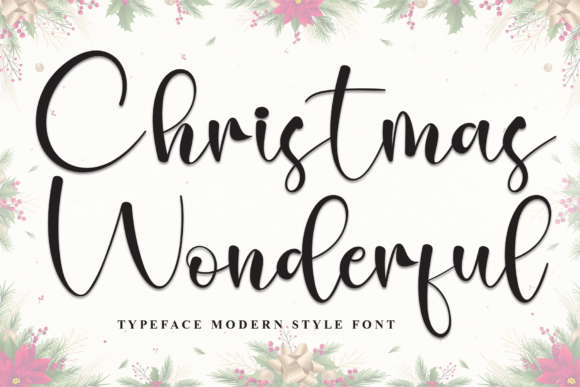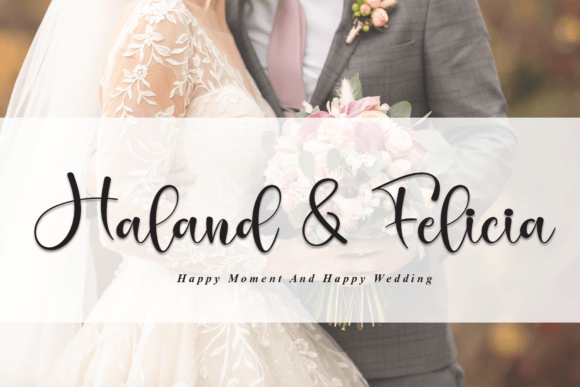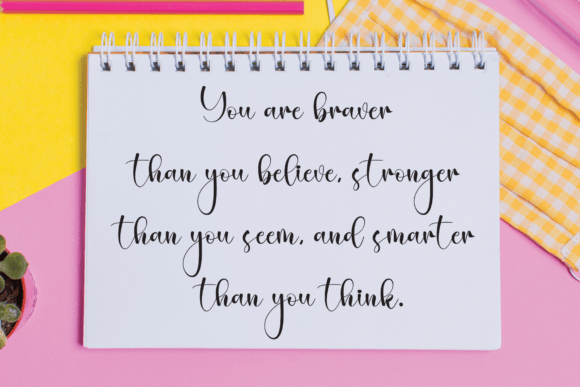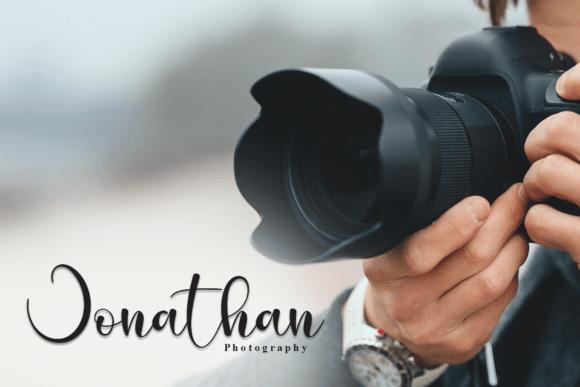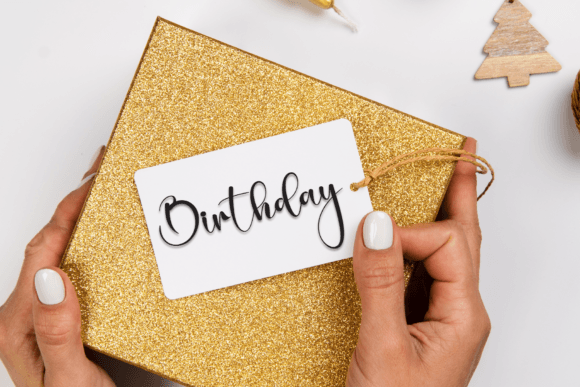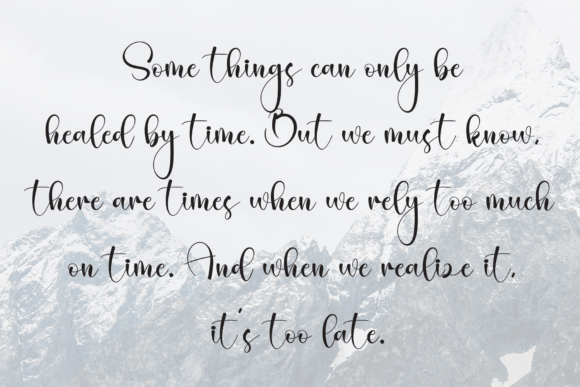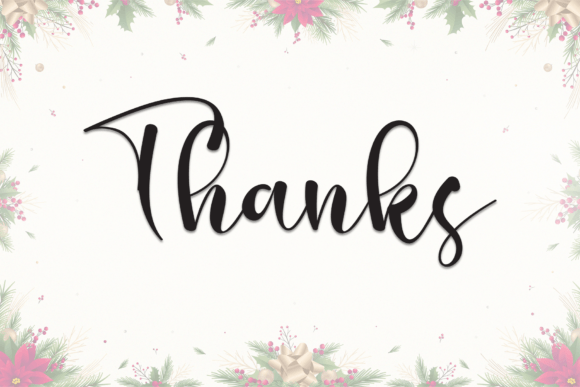
Unleash the Magic of the Season with Christmas Wonderful Font
As you sit by the fireplace, sipping hot cocoa and surrounded by twinkling lights, you start brainstorming ideas for this year’s Christmas projects. You envision a beautifully designed invitation, a stunning social media post, or a heartfelt card for loved ones. The perfect font can make all the difference in bringing your vision to life.
Enter Christmas Wonderful Font, a flowing handwritten font that exudes elegance and sophistication. Its distinct style is both timeless and versatile, making it the perfect choice for designers looking to add a touch of whimsy and charm to their projects. Whether you’re a seasoned pro or a DIY enthusiast, Christmas Wonderful Font is sure to inspire your creativity and help you create spectacular designs that will be cherished for years to come.
Christmas Wonderful Font Key Features
- Font Family: Christmas Wonderful Font comes in a single font family with multiple styles, including Regular, Bold, Italic, and Bold Italic.
- Character Set: The font includes a wide range of characters, including uppercase and lowercase letters, numbers, punctuation marks, and holiday-themed symbols.
- Unique Characteristics: The font features a festive and whimsical design, perfect for holiday-themed projects, with intricate details and ornaments.
Designer Review: Christmas Wonderful Font
✨ First, I have to say that the Christmas Wonderful Font has a certain charm to it. The designer has clearly put in effort to create a festive atmosphere with the font’s design. The use of red and green colors is bold and eye-catching, making it perfect for any holiday-themed project.
The font itself has a playful, handwritten feel to it, which is great for titles, headings, and other design elements that need a bit of whimsy. I also appreciate the variety of font styles and weights available, which gives users a lot of flexibility when it comes to customizing their designs.
⚠️ While the font has its charm, there are some limitations to consider. For one, the font may be too playful and informal for some projects, such as business or corporate designs. Additionally, the font’s design may not be suitable for projects that require a more modern or minimalist aesthetic.
⚠️ Another limitation is the font’s limited language support. While it includes some basic characters and symbols, it may not be suitable for projects that require a wide range of languages or special characters.
In conclusion, the Christmas Wonderful Font is a fun and festive addition to any holiday-themed project. While it has its limitations, it’s a great choice for designers who want to add a playful touch to their designs. With its bold colors and playful feel, it’s sure to bring a smile to anyone’s face.
Design Considerations
When using the Christmas Wonderful Font, be sure to consider the following:
- Use it sparingly to avoid overwhelming the design.
- Pair it with a more modern or minimalist font for balance.
- Be mindful of language support and character limitations.
The Christmas Wonderful Font is ideal for:
Christmas card designs and invitations
Holiday party decorations and signage